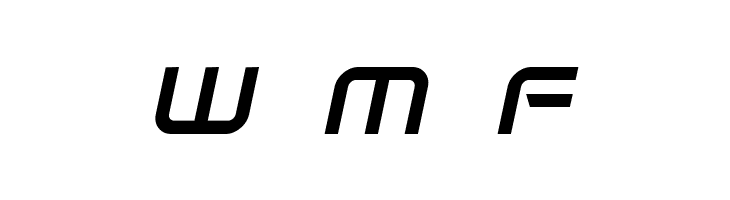
Life Support Bold Italic Font
Font by dustBUST - Andreas Nylin
A bold, italicized font with a futuristic and sleek design.
Vectroid Font
Font by dustBUST - Andreas Nylin
A futuristic, geometric font with bold, layered lines.
Quarx Italic Font
Font by dustBUST - Andreas Nylin
A sleek, modern italic font with a futuristic design and consistent stroke thickness.
Quark Outline Font
Font by dustBUST - Andreas Nylin
A geometric outline font with a futuristic and modern aesthetic.
Jumbo Outline Italic Font
Font by dustBUST - Andreas Nylin
A bold, outlined italic font with a modern and dynamic style.
Vaporbyte Slim Font
Font by dustBUST - Andreas Nylin
A futuristic, geometric font with sharp angles and a digital aesthetic.
Dreamland Stars Font
Font by dustBUST - Andreas Nylin
A whimsical and decorative font with intricate patterns and star motifs.
Execute 2000 Font